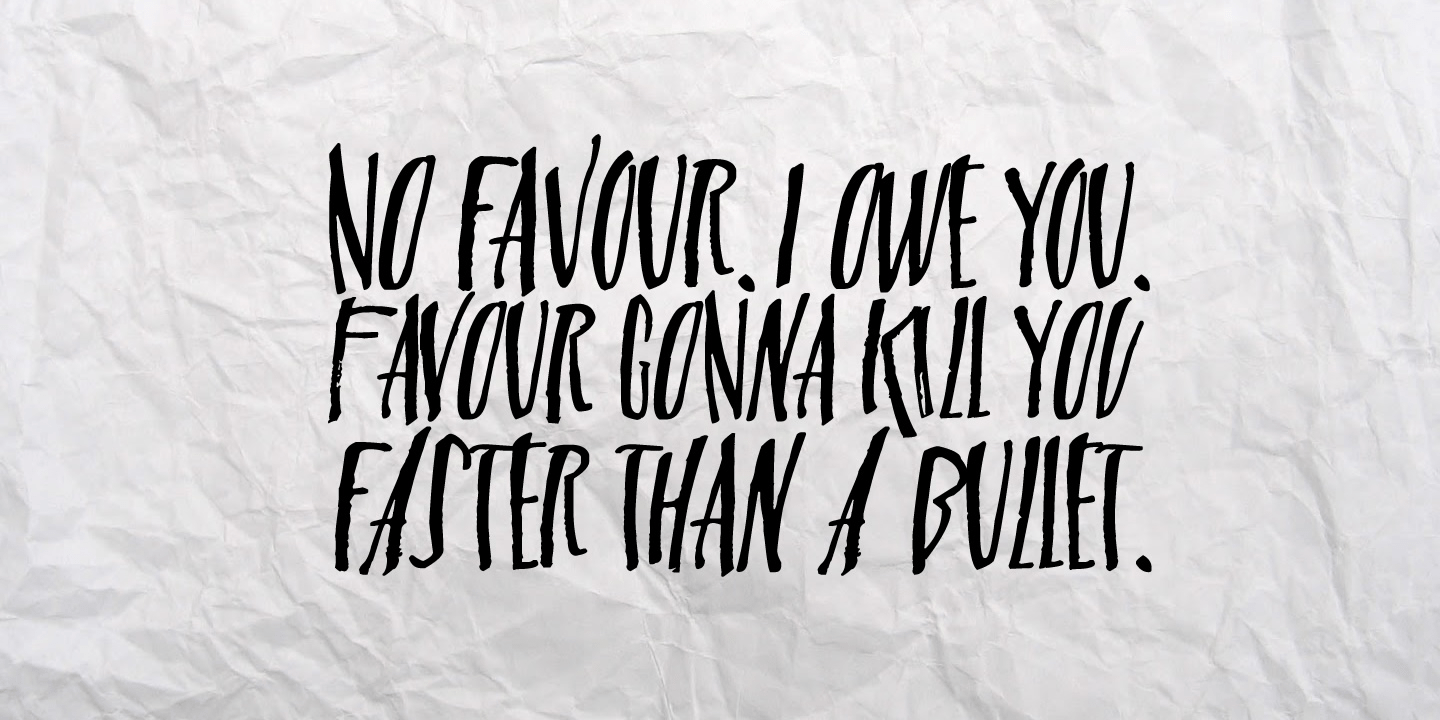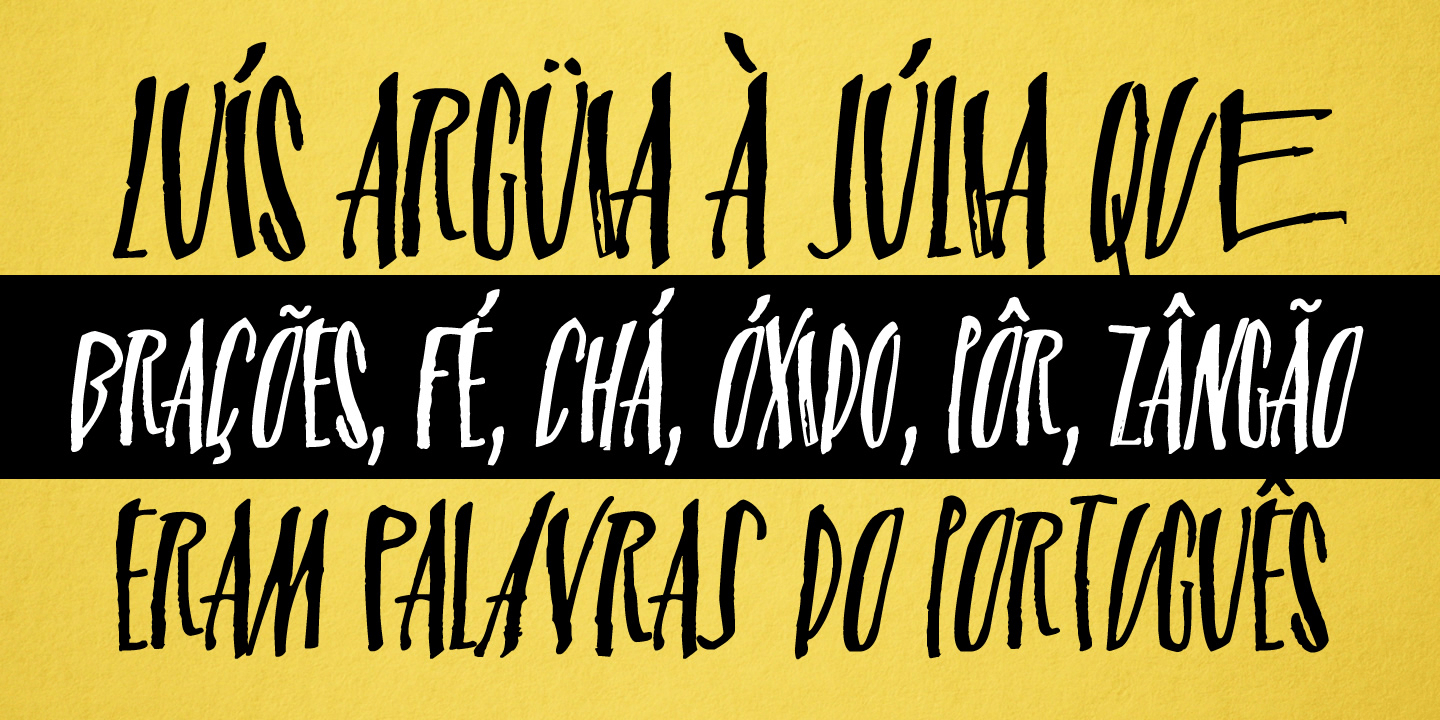
Misterall
Font Family by GRIN3 (Nowak)
Misterall is a hand made, all-caps, brush font by Bartek Nowak which contains two variations for each letter and a lot of ligatures. It can be used for invitations, greeting cards, posters, advertising, books, menus etc.
Language support includes Western, Central and Eastern European character sets, as well as Baltic and Turkish languages.